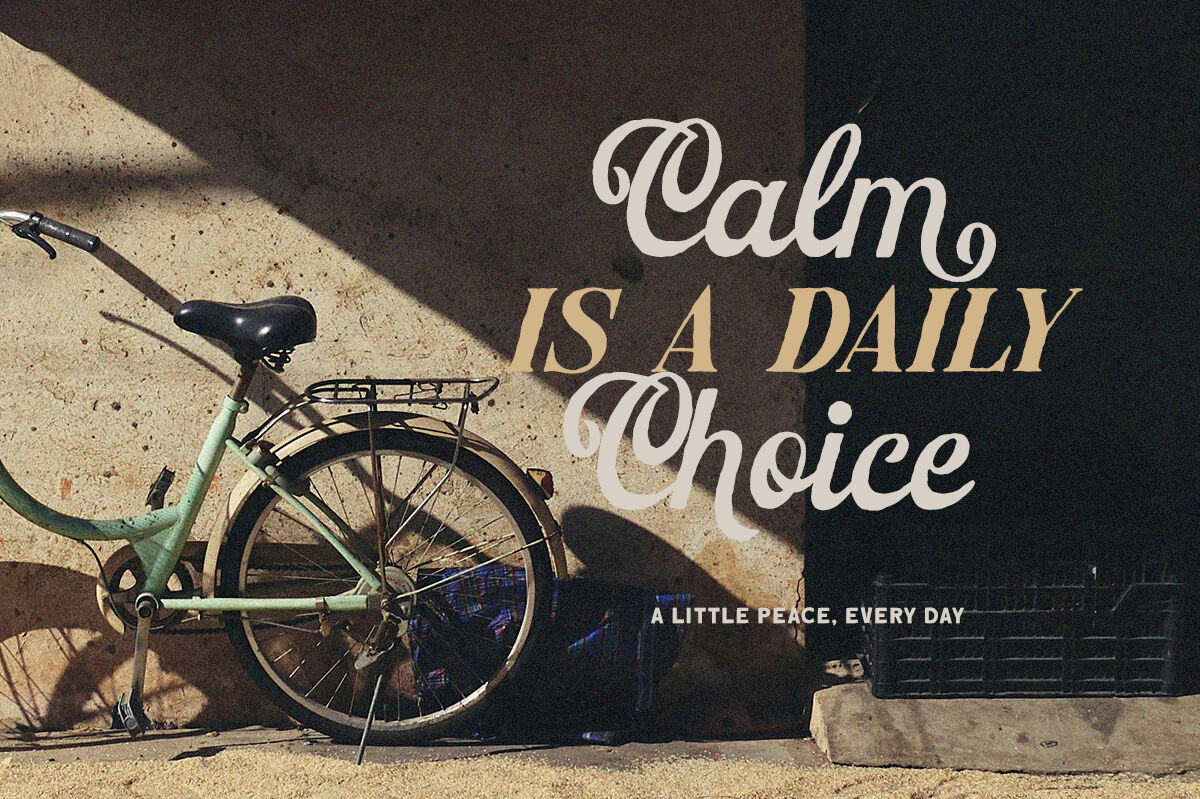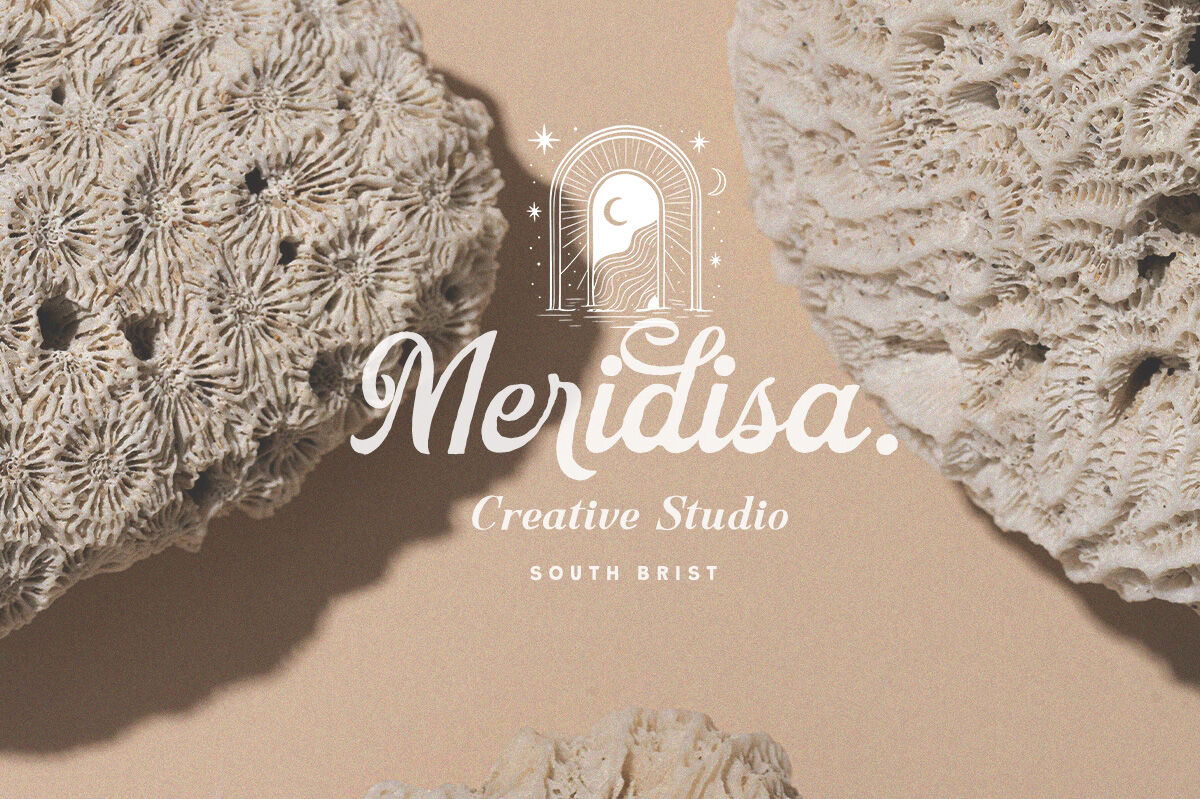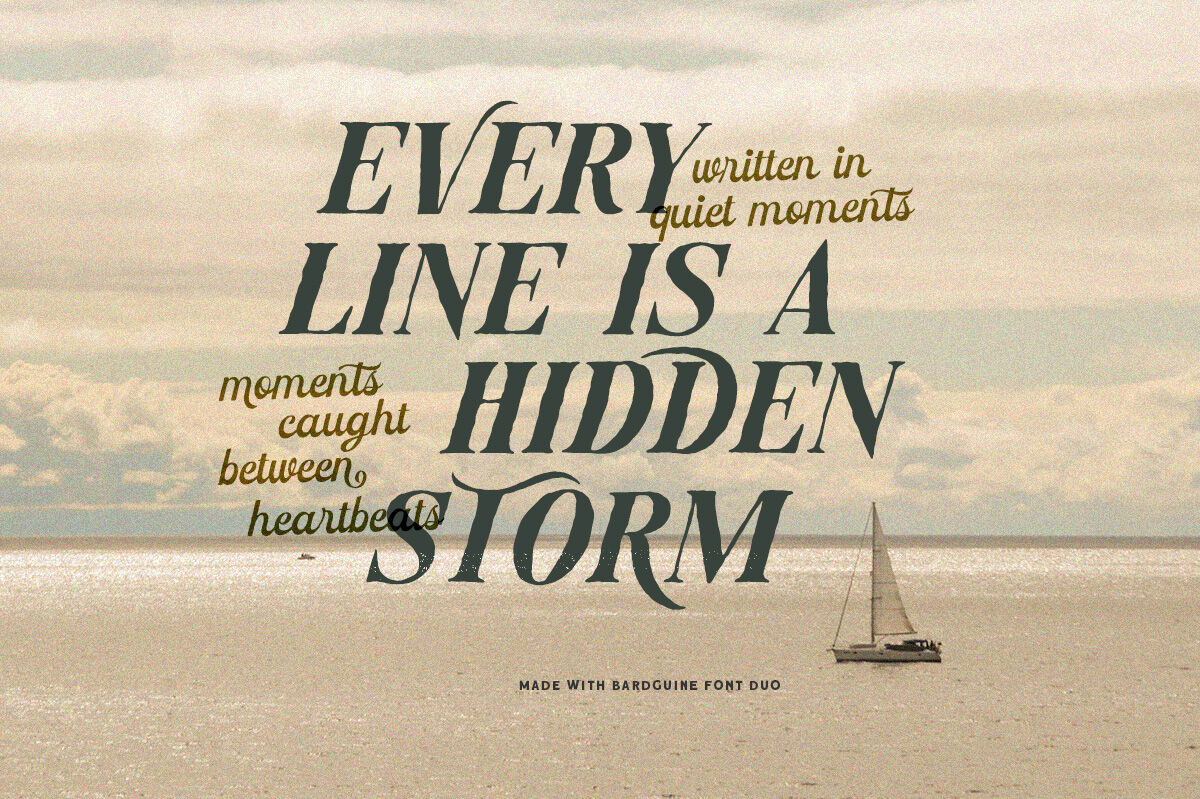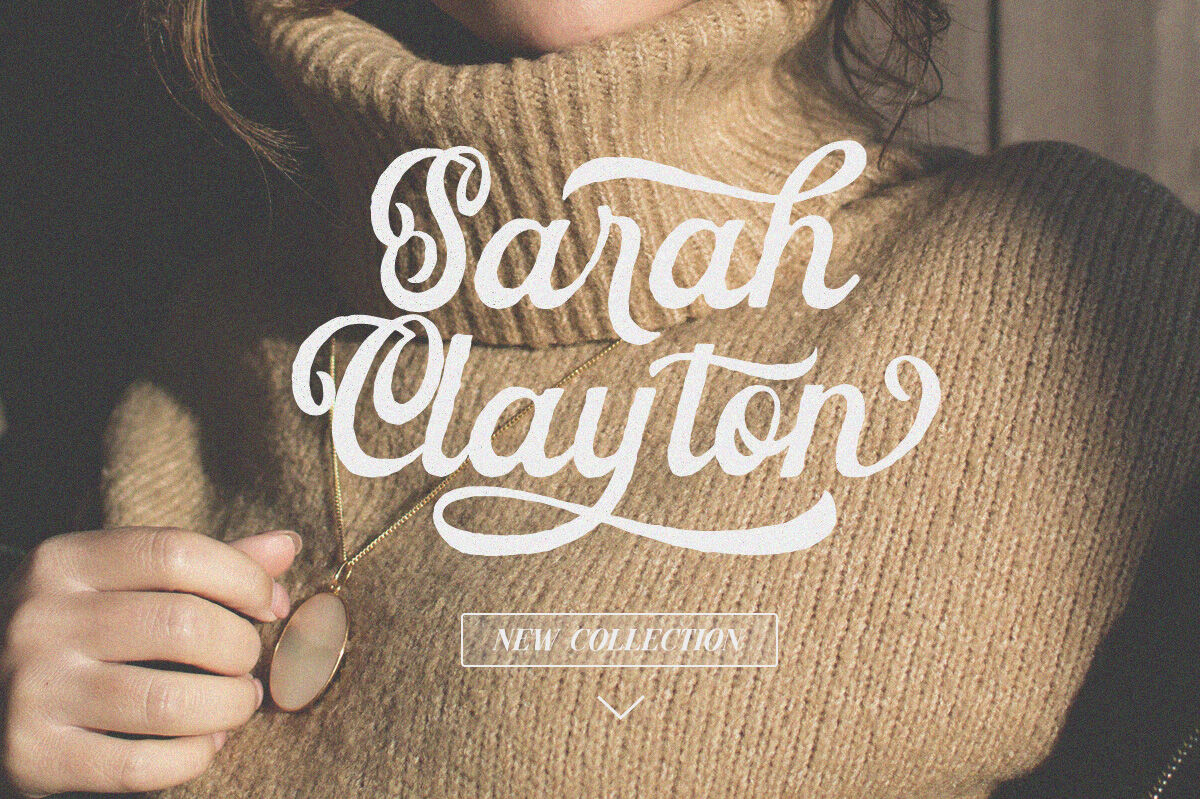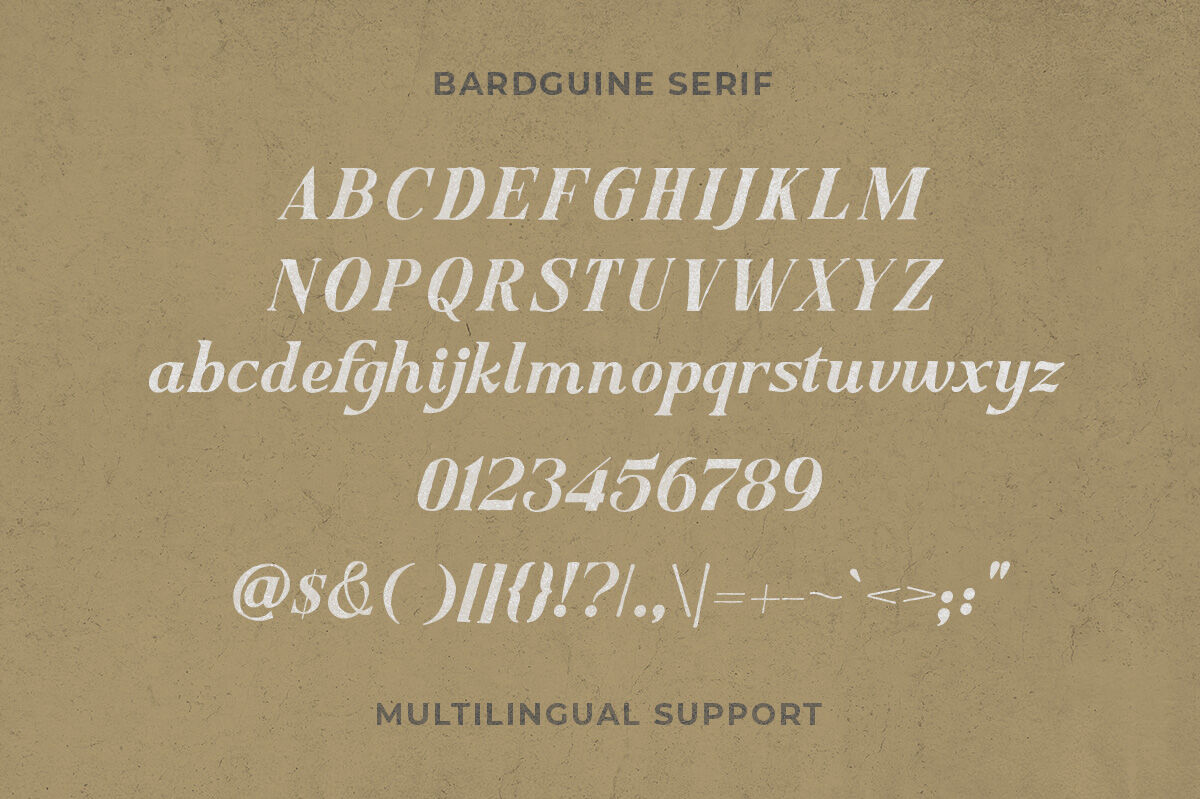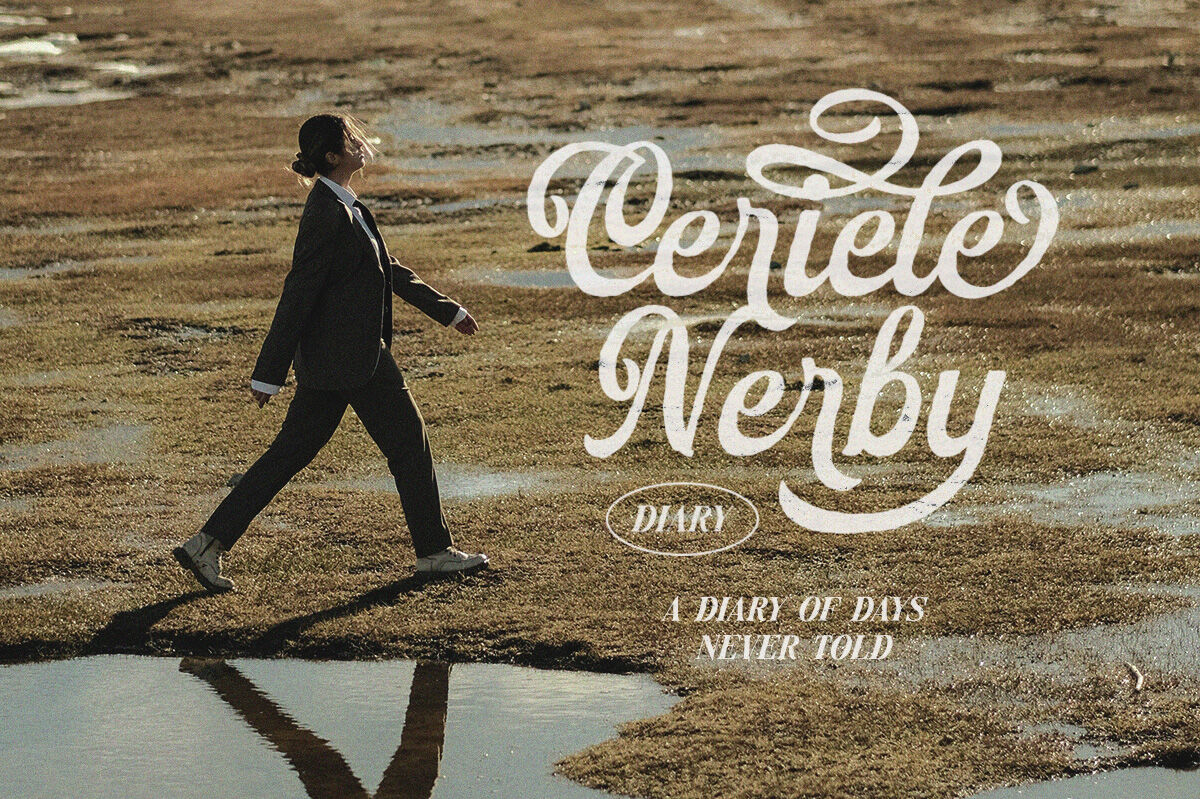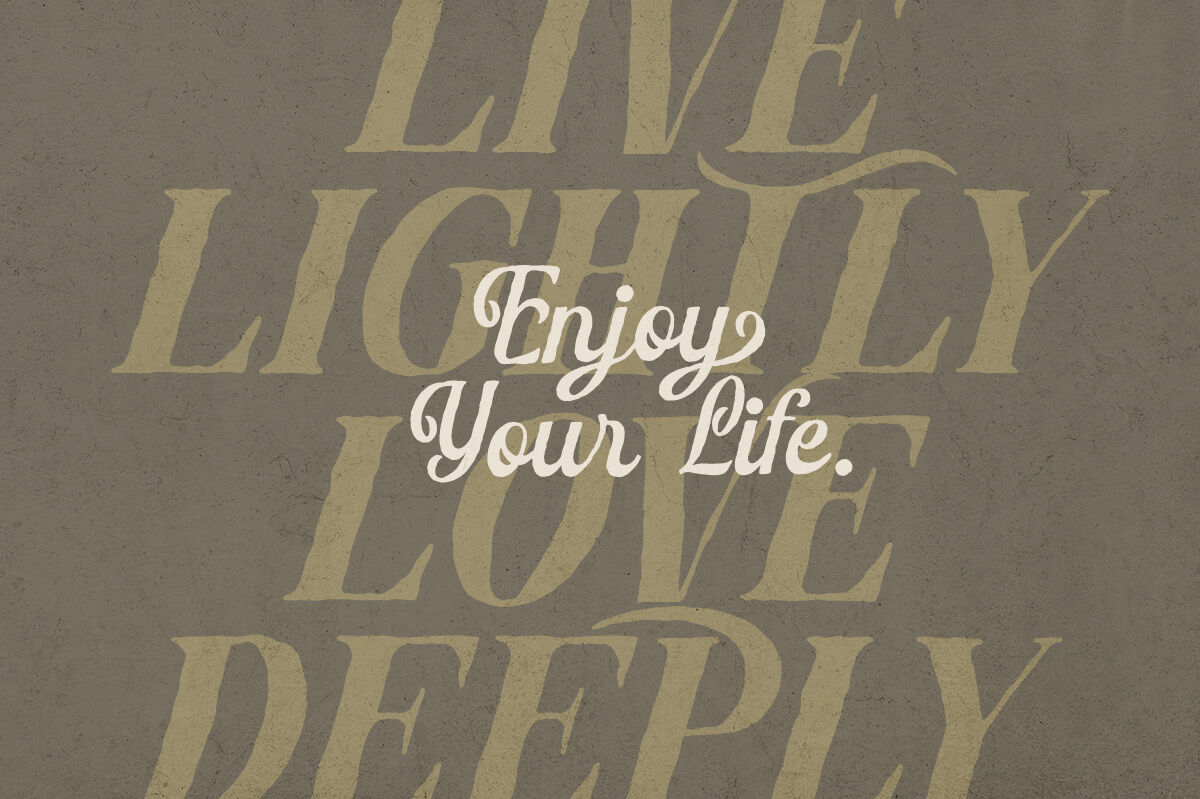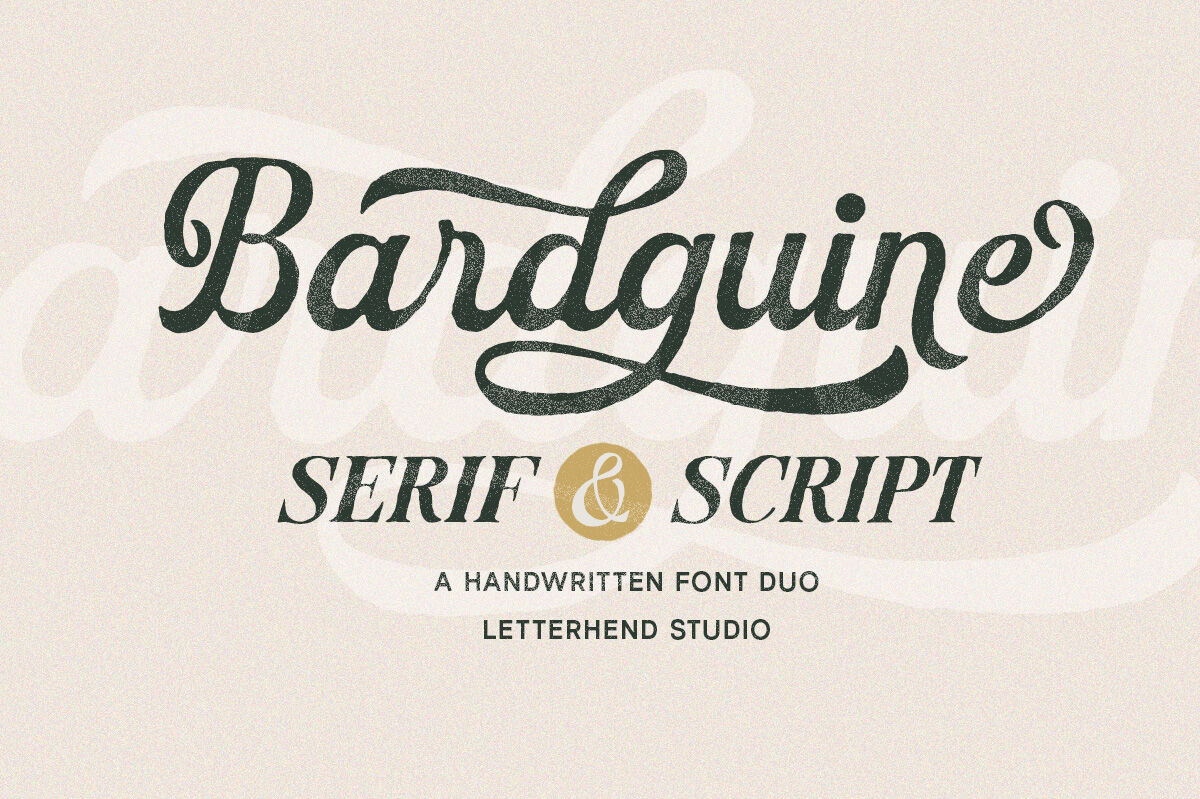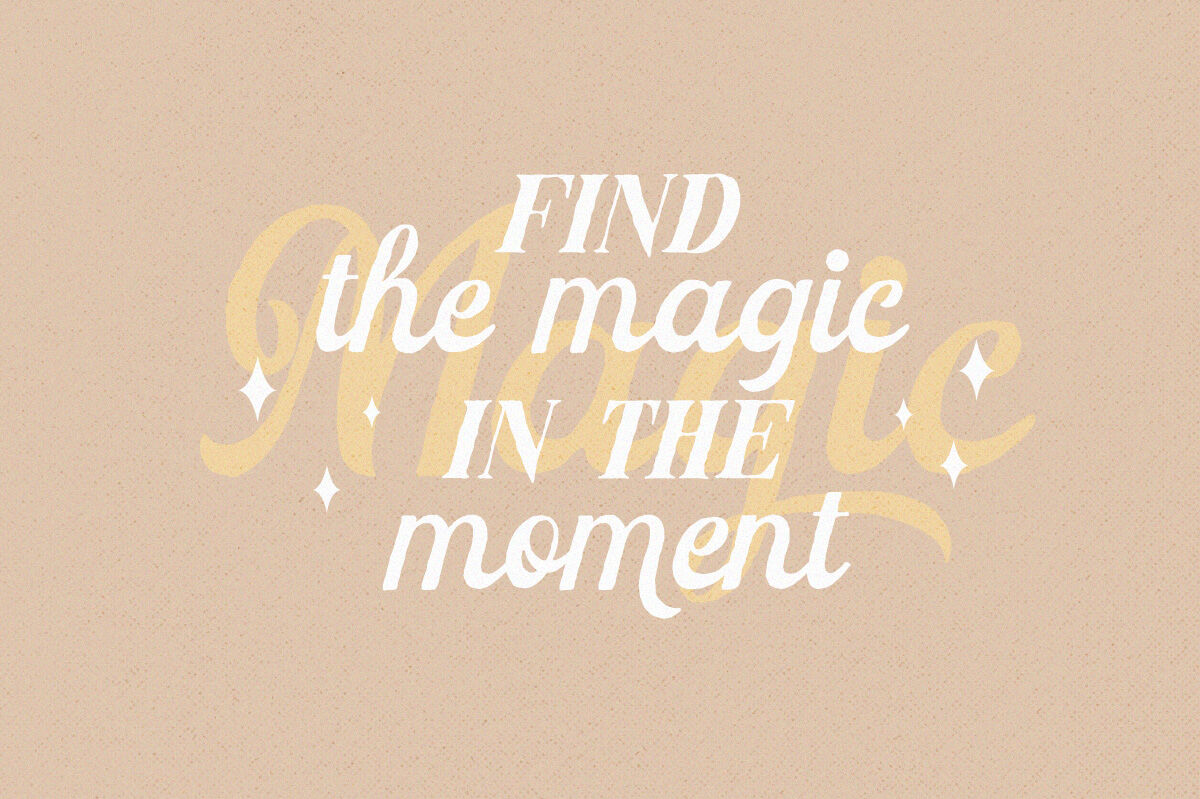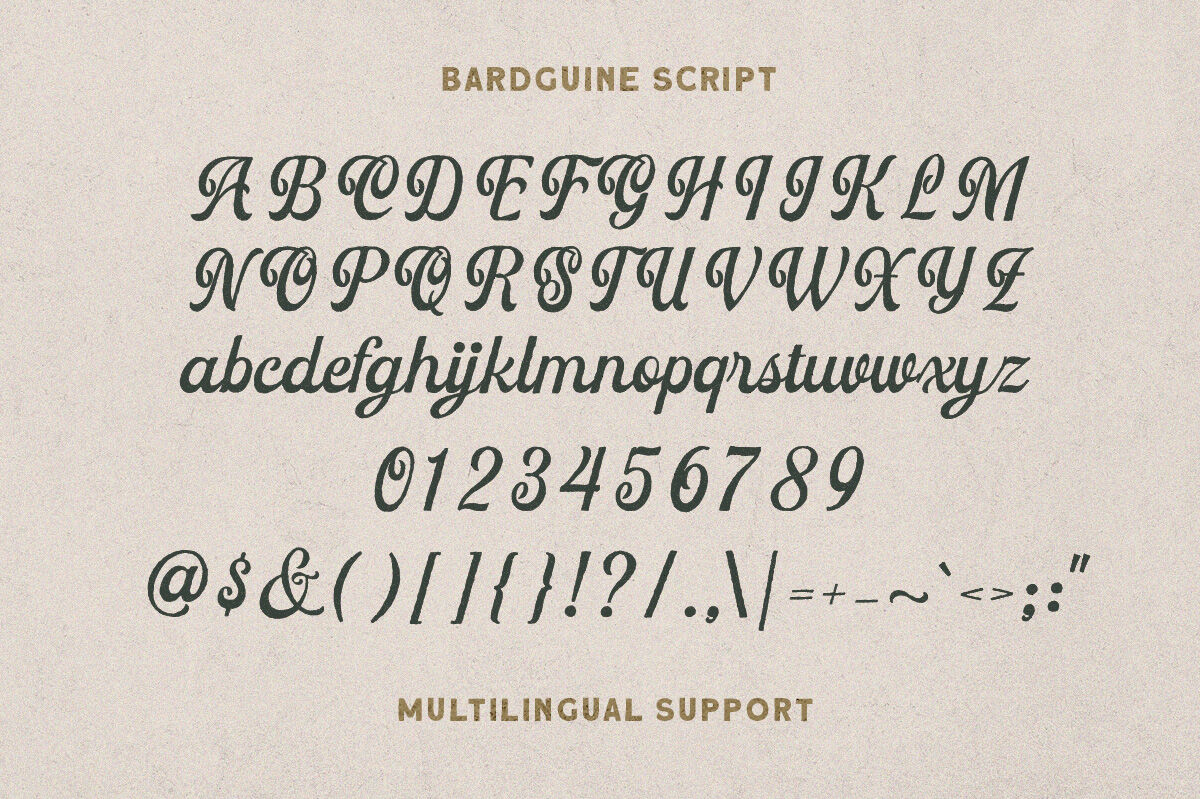
Bardguine Font Duo
Bardguine is a charming handwritten font duo that combines the elegance of a flowing script with the timeless strength of a classic serif. Designed to work beautifully together, this pair lets you mix playful curves with bold, confident lettering in one cohesive look. Features : Uppercase & lowercase Numbers and punctuation Regular & Custome Multilingual Support PUA encoded We highly recommend using a program that supports OpenType features and Glyphs panels like many of Adobe apps and Corel Draw, so you can see and access all Glyph variations. PLEASE READ THIS: To use alternate charactter/swash you have to use opentype. For accessing opentype feature, kindly check this link letterhend.com/tutorials/using-opentype-feature-in-any-software/ For business collaboration inquiries, please contact us at letterhend@gmail.com. For feedback and any other question, please contact our support team at admin@letterhend.com. We'll happy to help you!
Bardguine Serif
Bardguine Script